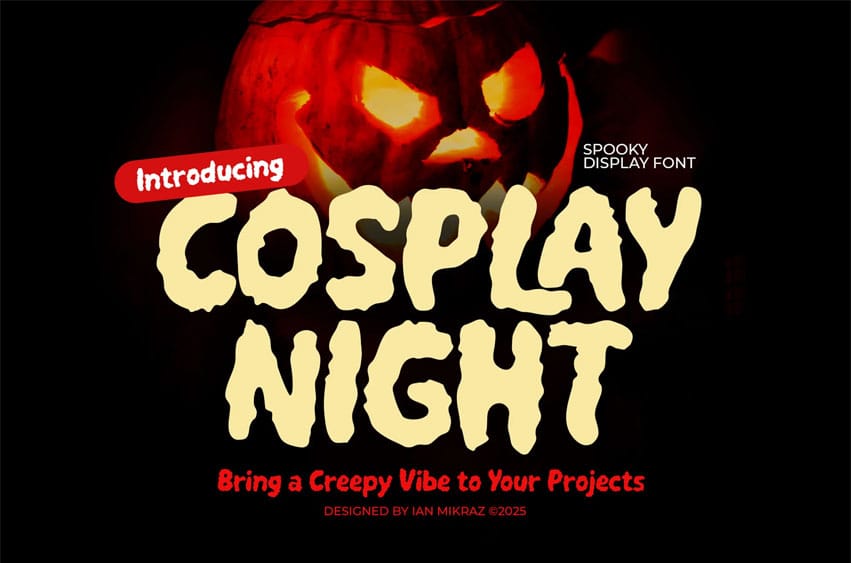
Cosplay Night Font is a bold, spooky display font crafted to deliver instant Halloween energy. Its chubby, gooey shapes and soft, irregular edges create a playful-creepy vibe that reads loud and clear on posters, thumbnails, and storefront graphics. Drop it into your layout and the atmosphere shifts—pumpkins glow brighter, shadows get longer, and your message sticks.
Designed for attention, the font includes uppercase and lowercase letters, numerals, punctuation, and useful ligatures (LA, LM, LN, OC, OG, TU, TT) for smoother word shapes. Clean outlines, tuned kerning, and multilingual support keep everything crisp from social posts to giant outdoor banners—no muddy edges, just juicy impact.
Use Cosplay Night for party flyers, trick-or-treat invitations, haunted-house signage, streaming thumbnails, seasonal ads, game titles, and merch. Whether you’re selling a Halloween sale or announcing a spooky night party, this font makes your text feel alive—fun, eerie, and unmistakably on theme